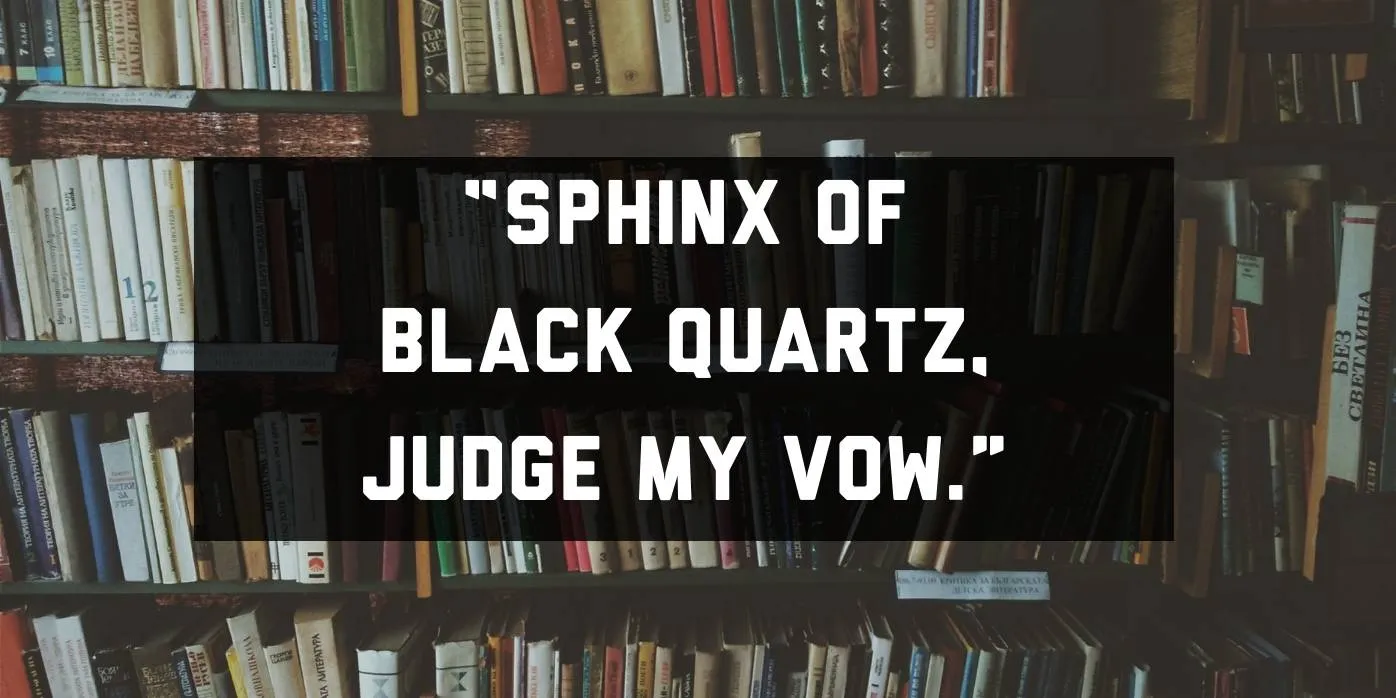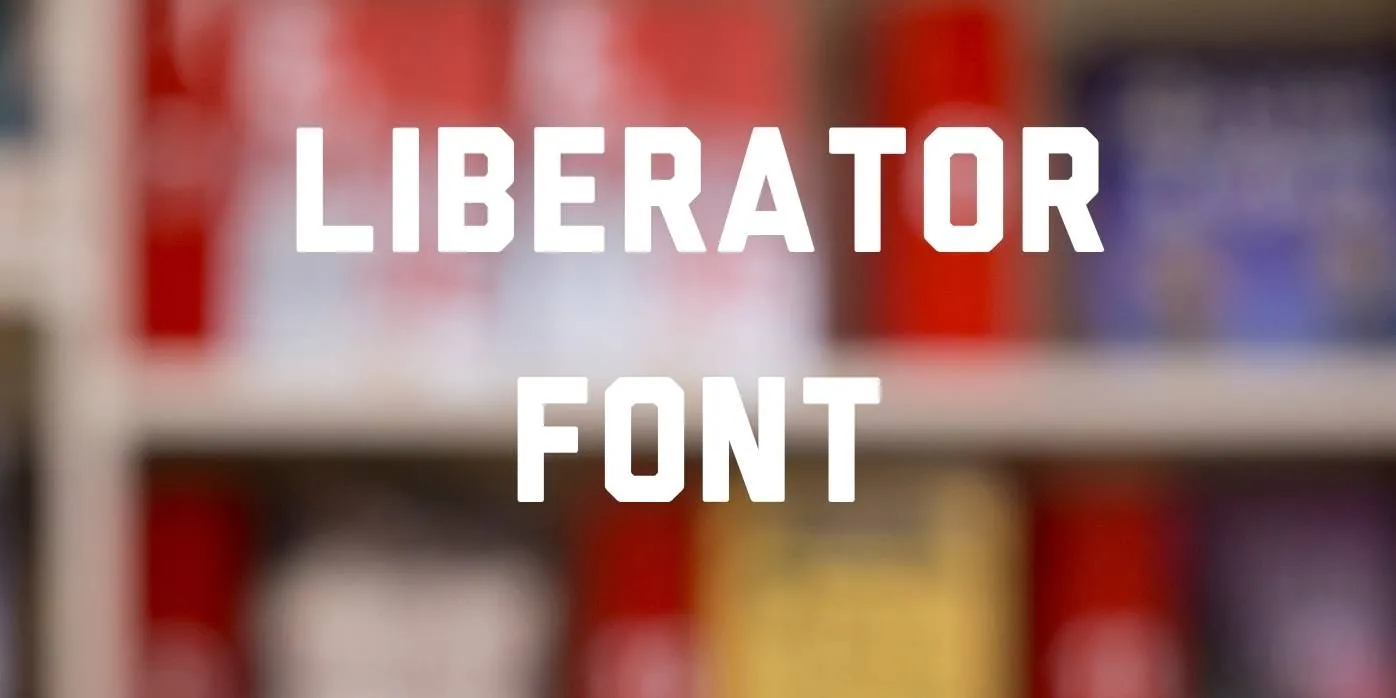
Liberator Font
Liberator Font was developed by designer Ran Clark In the year 2011. This typeface belongs to the Sans-Serif typeface. This stunning Font is a geometric font that has a clean and modern look. It is perfect for headlines, logos, and other creative designs.
Its lettering is designed to be easily read and understood. This attractive font is perfect for any type of project that needs a modern and clean look. This amazing typeface is not available on Dafont you can download it from our websites. Interstate Font is similar to this classy typeface.
This awesome font is available in two weights, light and regular. The lightweight is best for headlines and the regular weight is great for body text. This cute font includes uppercase letters, numbers, Symbols, Icons, and so on.